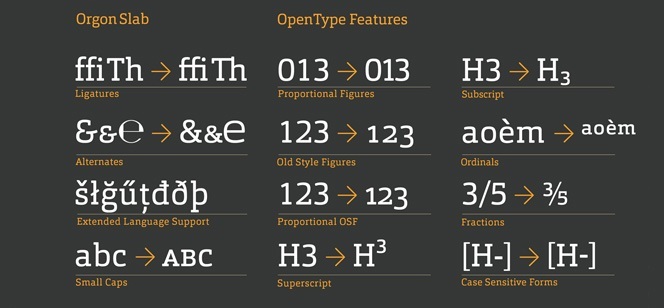
Orgon Slab
Orgon Slab font by Dieter Hofrichter (Hoftype foundry) is a Geometric Slab Serif with clear letterforms, rounded unbracketed serifs and squarish ovals. It complements the Orgon typeface family with rhythmic and fresh appearance. Orgon Slab family offers excellent legibility and is suitable for a wide range of typography applications.
Orgon Slab font family comes in 8 weights (from Thin to Black) and their italic matches, loaded with extended language support and a plenty of OpenType features like ligatures, small caps, superior characters, proportional lining figures, tabular lining figures, proportional old style figures, lining old style figures, matching currency symbols, fraction- and scientific numerals and matching arrows.
Designer: Dieter Hofrichter
Publisher: Hoftype